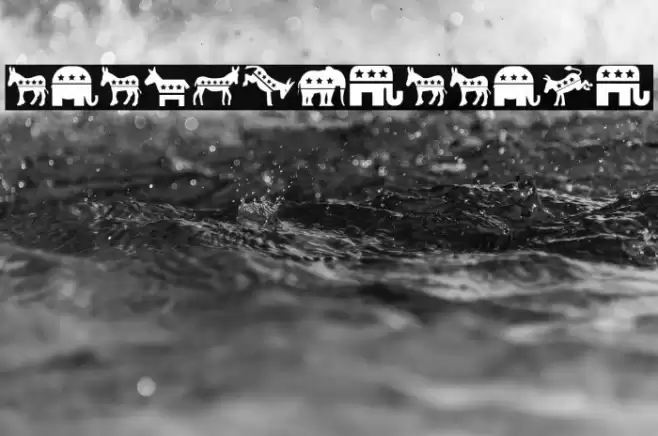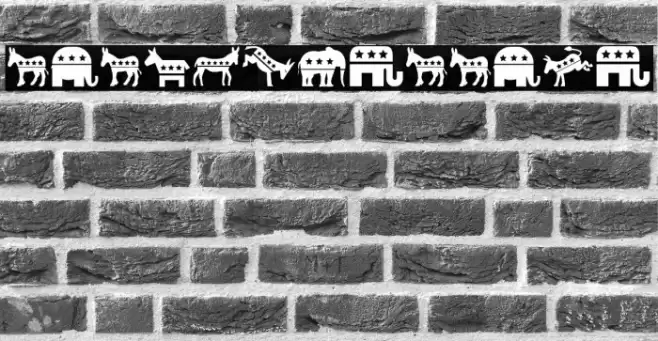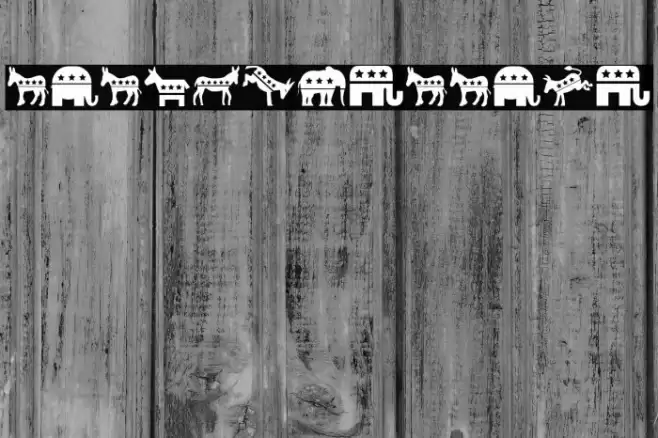
Elections Regular Font
Elections Regular Description
This font is a decorative and thematic typeface featuring iconic symbols of political parties, specifically elephants and donkeys, which are stylized with stars and stripes. The characters are represented by these symbols, creating a playful and thematic representation suitable for political or election-related projects. The design is bold and easily recognizable, making it ideal for attention-grabbing headlines or thematic displays. The symbols are consistent in style, with a uniform weight and a clear, bold outline that enhances visibility.
A decorative font featuring political party symbols for thematic use from Dingbats fonts.
- Proposed Projects: Ideal for political campaign materials, election-themed posters, educational materials about political systems, or any project requiring a playful political theme.
- Use Case: Headlines, Logos, Thematic Displays